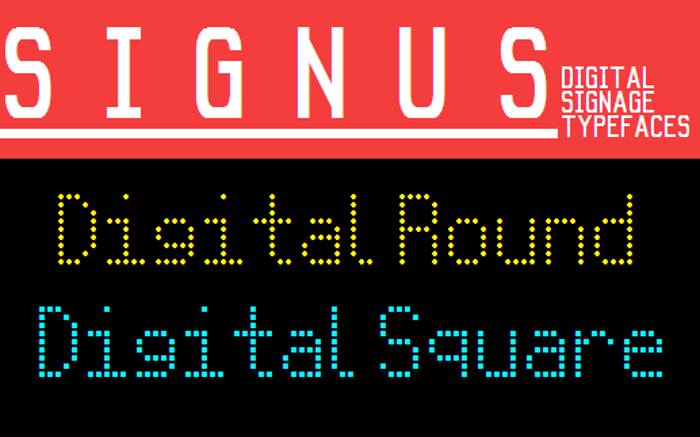
Signus Digital Round NBP Font
Pixel fonts inspired by outdoor LED messaging signs.
Similar to Erbos Draco, but that one was inspired by a scoreboard.
@WolfLambert Thanks, glad you like it! The original Signus doesn't have lowercases because movable letter signs don't usually have them either.